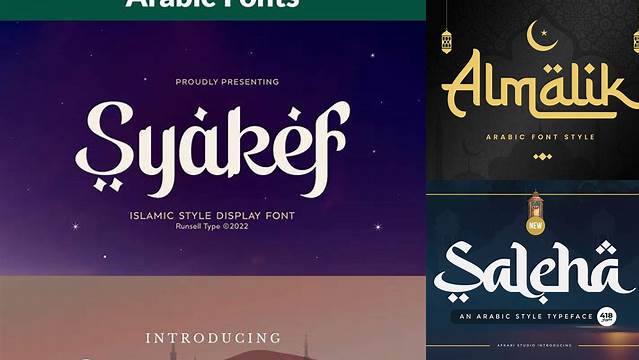
Arabic Style English Fonts: Free Download & Usage Tips
Are you looking to add a touch of Arabic elegance to your English text? You're in the right place, guys! In this comprehensive guide, we'll dive into the fascinating world of English fonts that mimic Arabic calligraphy. We'll explore why these fonts are so popular, where you can find them for free, and how to use them effectively in your design projects. Whether you're a seasoned designer or just starting, this article will equip you with the knowledge and resources to create stunning visuals with an Arabic flair. So, let's get started and discover the beauty of English fonts with Arabic style!
Why Choose English Fonts with Arabic Style?
Arabic-inspired English fonts offer a unique and visually appealing way to bridge the gap between two distinct cultures and languages. These fonts blend the familiar structure of the English alphabet with the flowing, ornate aesthetics of Arabic calligraphy. This fusion creates a captivating visual style that can be used in a wide range of applications, from branding and logo design to posters, websites, and social media graphics. But what makes these fonts so special? Let's break it down:
Cultural Fusion and Visual Appeal
The primary allure of these fonts lies in their ability to seamlessly blend two distinct visual traditions. Arabic calligraphy, with its elegant curves and intricate details, has a rich history and cultural significance. By incorporating these elements into English letterforms, designers can evoke a sense of sophistication, mystery, and exoticism. This fusion can be particularly effective for projects that aim to convey a sense of globalism, cultural awareness, or a connection to the Middle East and North Africa. The visual appeal of these fonts stems from their unique character and ability to stand out from more conventional typefaces. They add a touch of personality and artistry to any design, making them ideal for projects that require a distinctive and memorable look.
Versatility in Design Applications
Arabic-inspired English fonts aren't just about aesthetics; they also offer a high degree of versatility. They can be used in a variety of design contexts, ranging from formal and elegant to modern and edgy. For instance, a delicate and flowing Arabic-style font might be perfect for wedding invitations or high-end branding, while a bolder, more geometric version could be used for posters or website headers. This adaptability makes them a valuable tool for designers working across different industries and project types. Whether you're designing a logo for a Middle Eastern restaurant, creating promotional materials for an international event, or simply adding a touch of flair to your personal blog, these fonts can help you achieve the desired effect.
Standing Out from the Crowd
In a world saturated with generic fonts, using an Arabic-inspired English font can be a great way to make your designs stand out. These fonts offer a fresh and unique visual language that can capture attention and create a lasting impression. They can be particularly effective for brands and organizations that want to project an image of innovation, creativity, and cultural awareness. By choosing a less conventional typeface, you can communicate your brand's personality and values in a more impactful way. Moreover, these fonts can help you target specific audiences who appreciate the beauty and artistry of Arabic calligraphy. They can create a sense of connection and authenticity, fostering a deeper engagement with your brand or message.
- Google Fonts: Google Fonts is a fantastic resource for free, open-source fonts. While it might not have a massive selection of Arabic-style English fonts specifically, you can often find some hidden gems by using relevant keywords in your search. The great thing about Google Fonts is that they are incredibly easy to use on websites and in documents, and they come with a clear licensing policy.
- Font Squirrel: Font Squirrel is known for its high-quality, free fonts that are licensed for commercial use. This is a crucial point, as many free font websites only offer fonts for personal use. Font Squirrel has a good selection of unique and stylish fonts, and you can often find some Arabic-inspired options if you browse through their different categories.
- DaFont: DaFont is one of the largest free font archives on the internet, with a vast collection of fonts in various styles. It has a dedicated category for "Arabic" fonts, but you'll need to sift through them to find the ones that blend English characters with Arabic aesthetics. Always double-check the license before using a font from DaFont, as some are only for personal use.
When browsing these websites, use keywords like "Arabic," "Kufi," "Islamic," or "calligraphy" to narrow down your search. Remember to carefully review the font license before downloading and using any font, especially for commercial projects. This will help you avoid any potential copyright issues down the road.
Online Design Communities
So, there you have it, folks! A comprehensive guide to English fonts in Arabic style. We've explored why these fonts are so popular, where to find them for free, and how to use them effectively in your design projects. Whether you're a professional designer or a hobbyist, these fonts can be a valuable addition to your creative toolkit. By blending the beauty of Arabic calligraphy with the familiarity of the English alphabet, you can create stunning visuals that capture attention and convey a unique message. Remember to consider the context, audience, and readability when using these fonts, and don't be afraid to experiment and have fun. Now go out there and create something amazing!